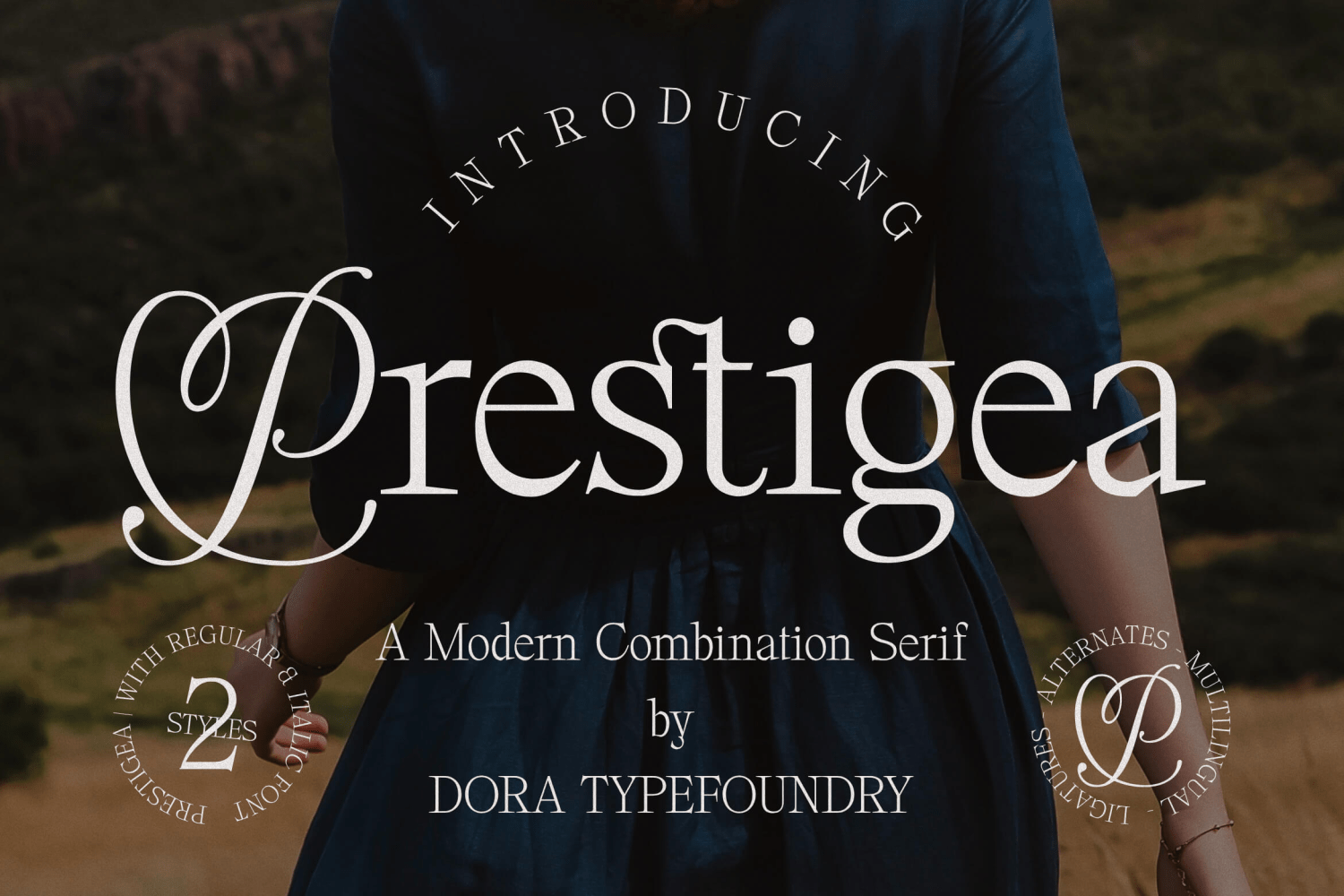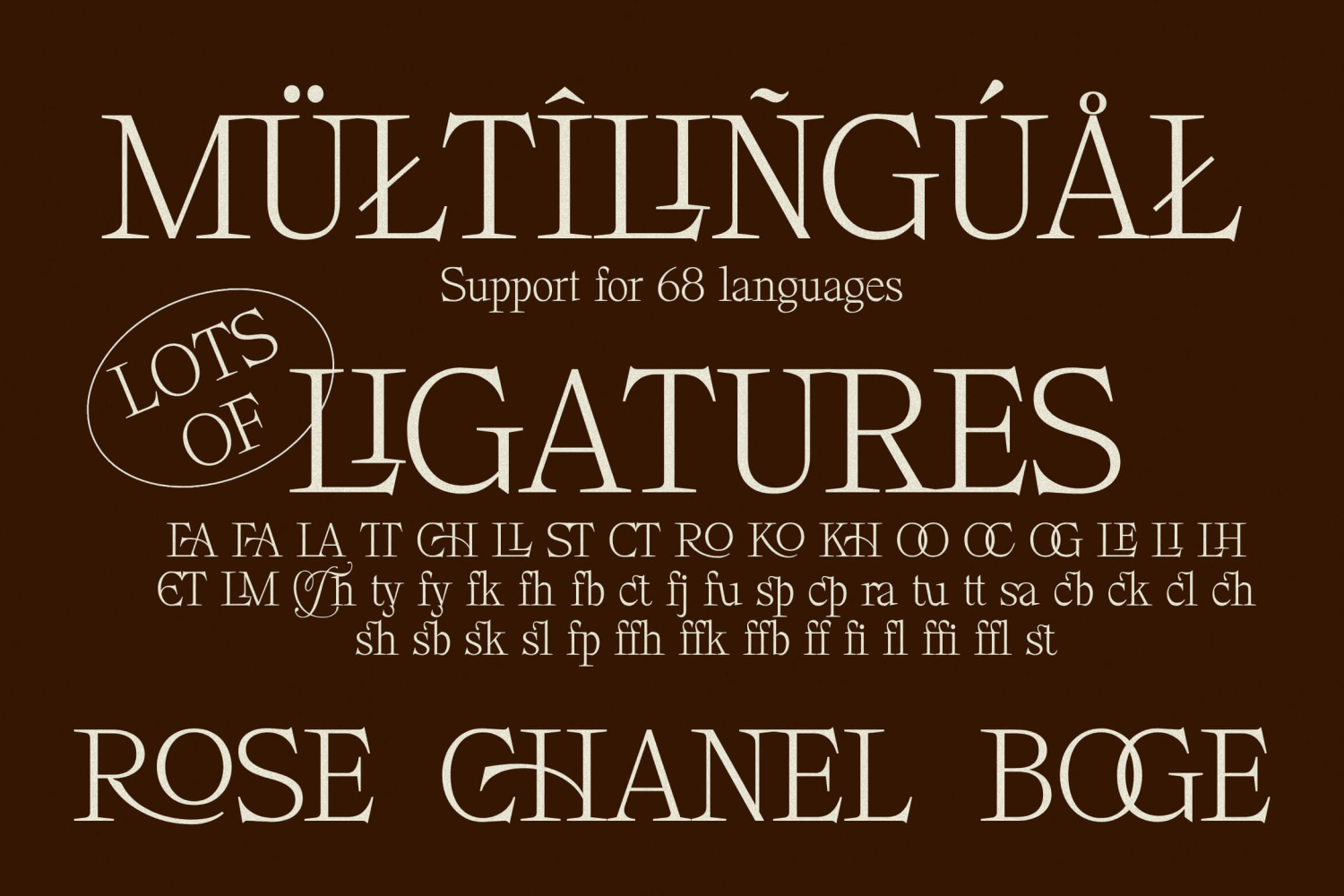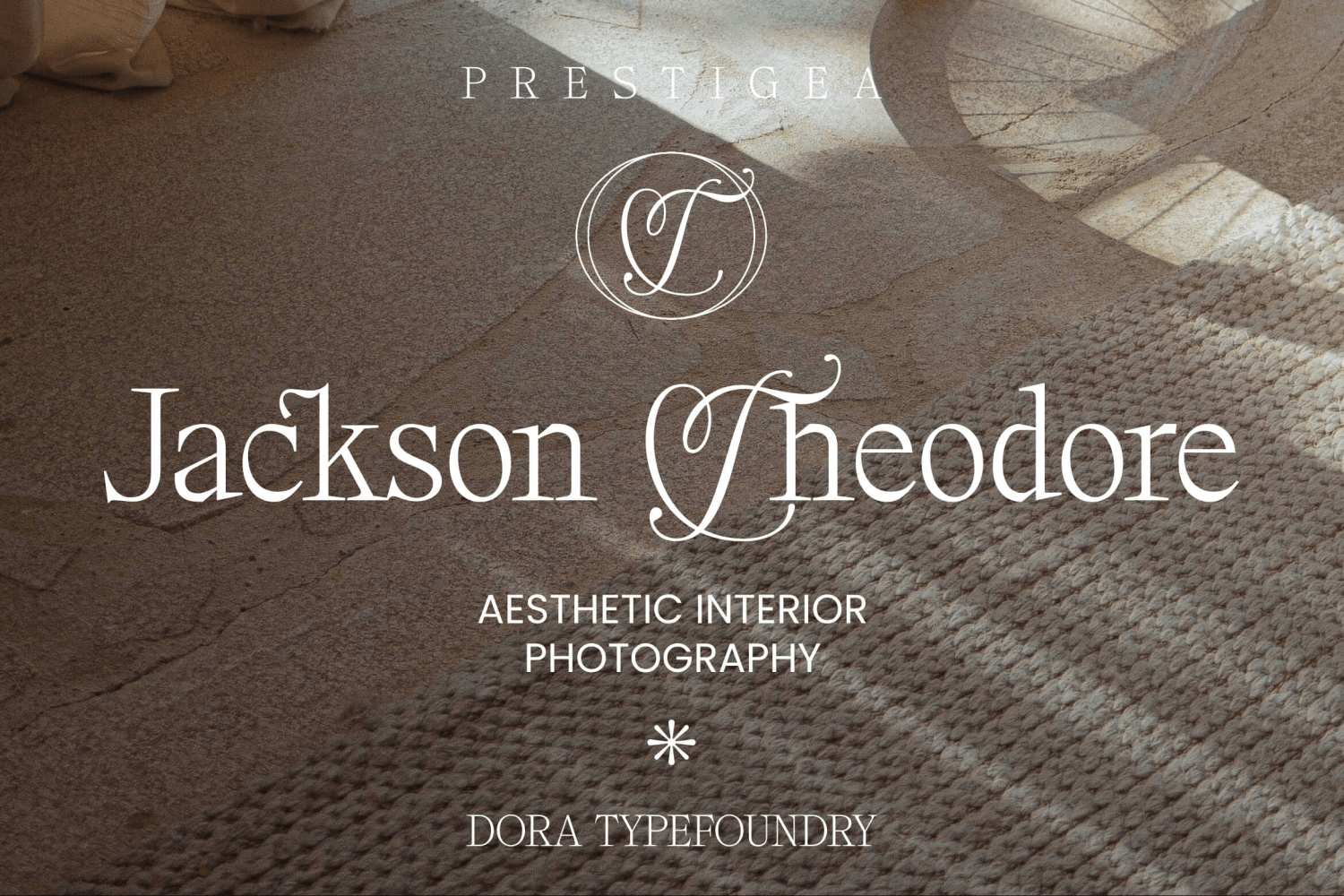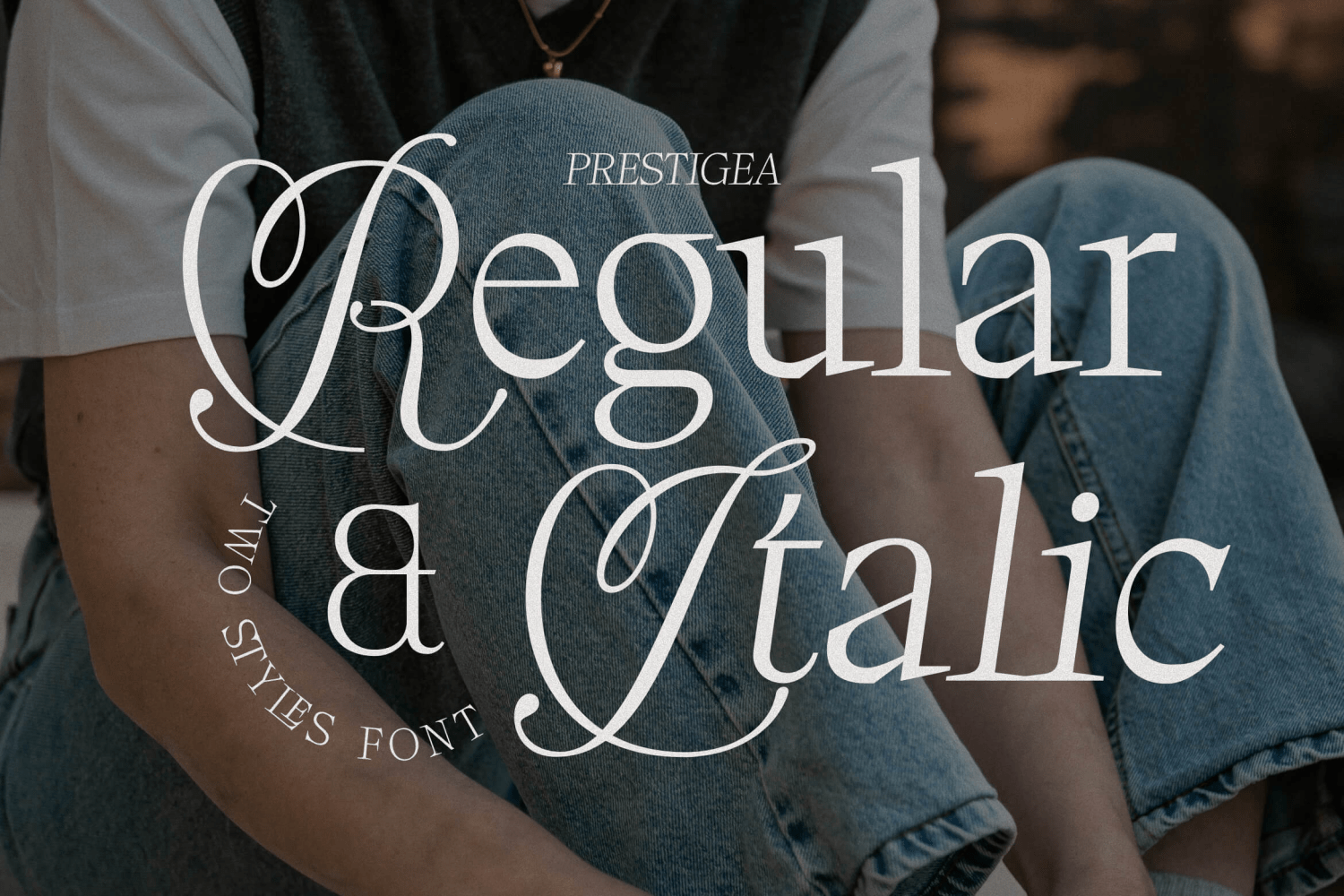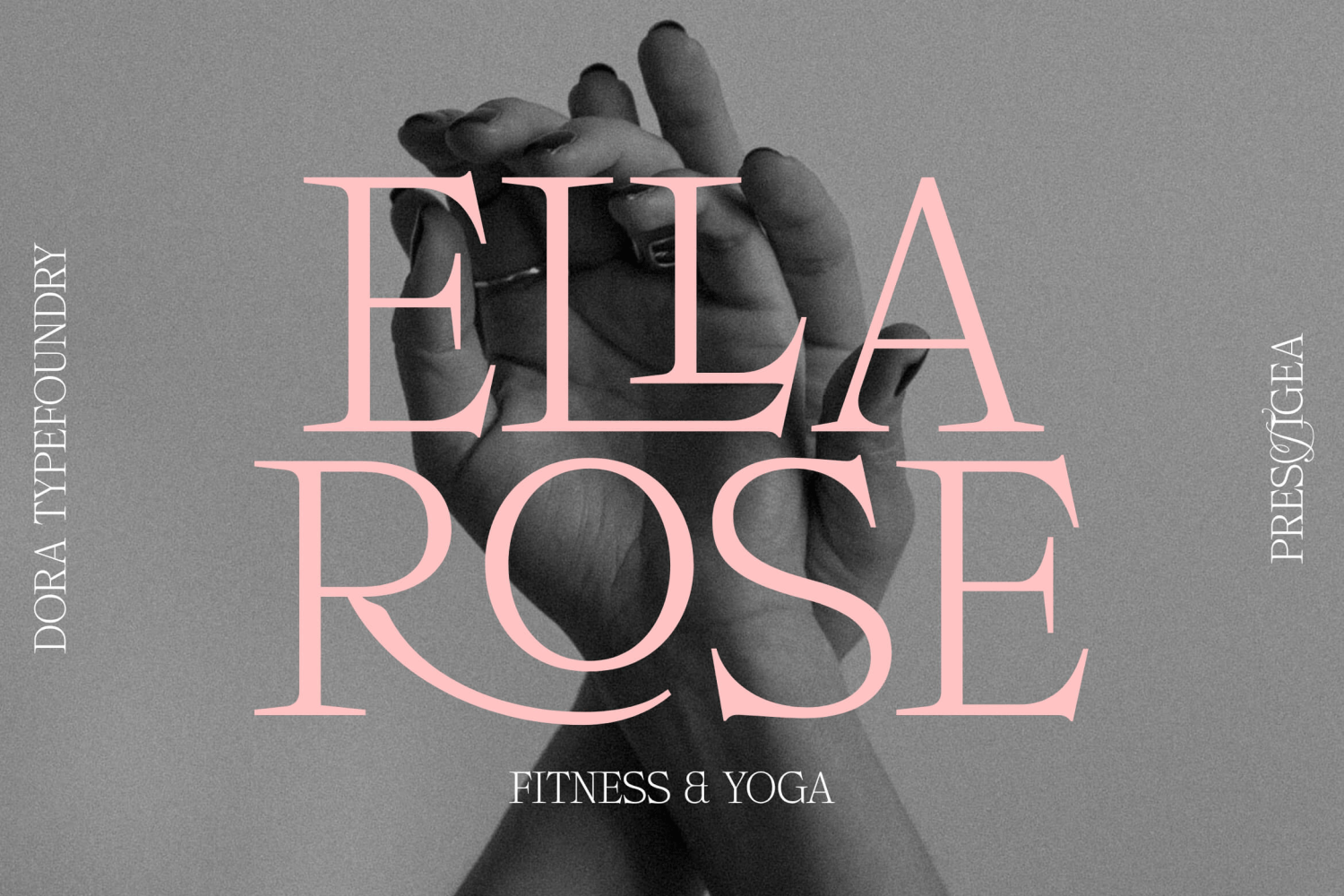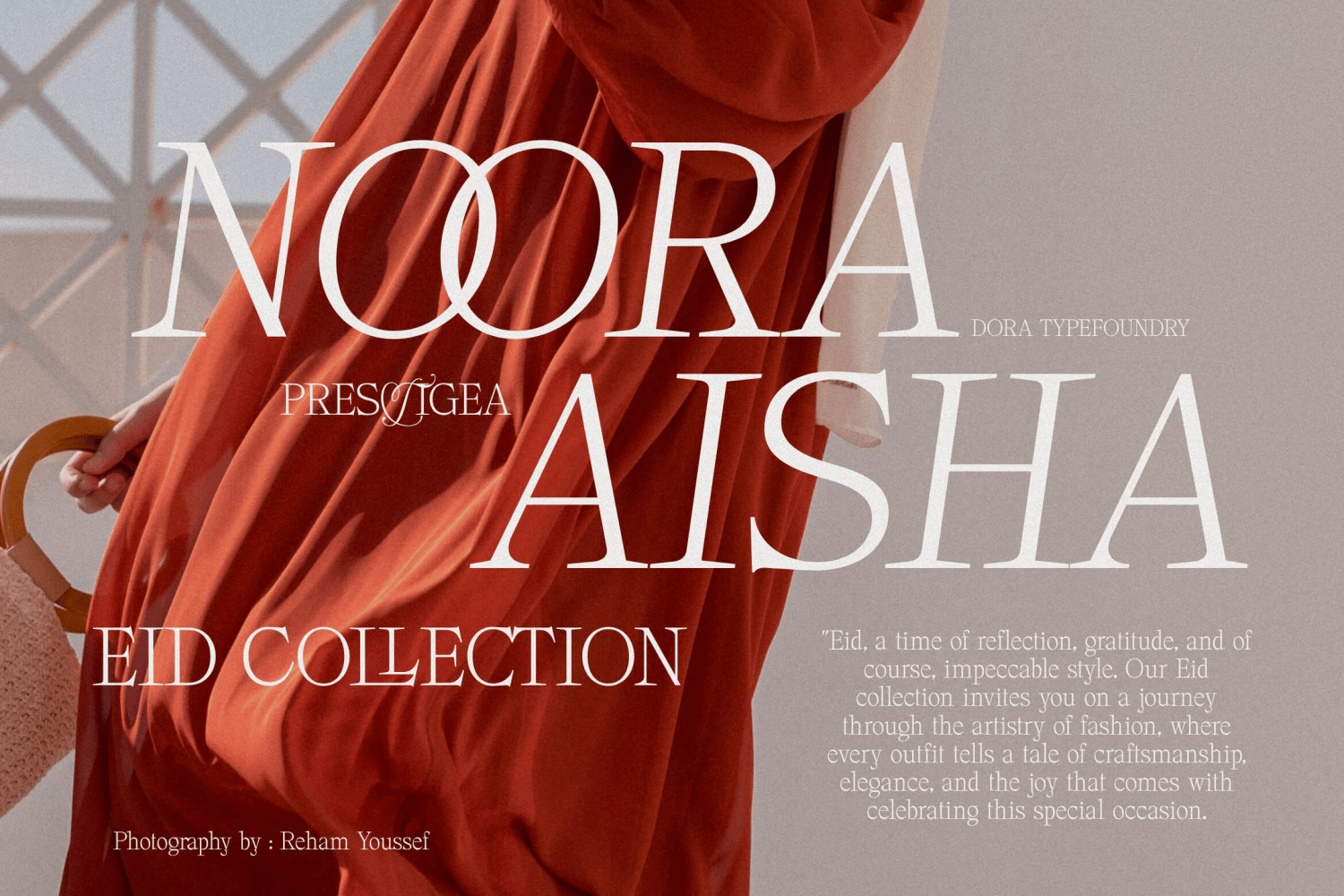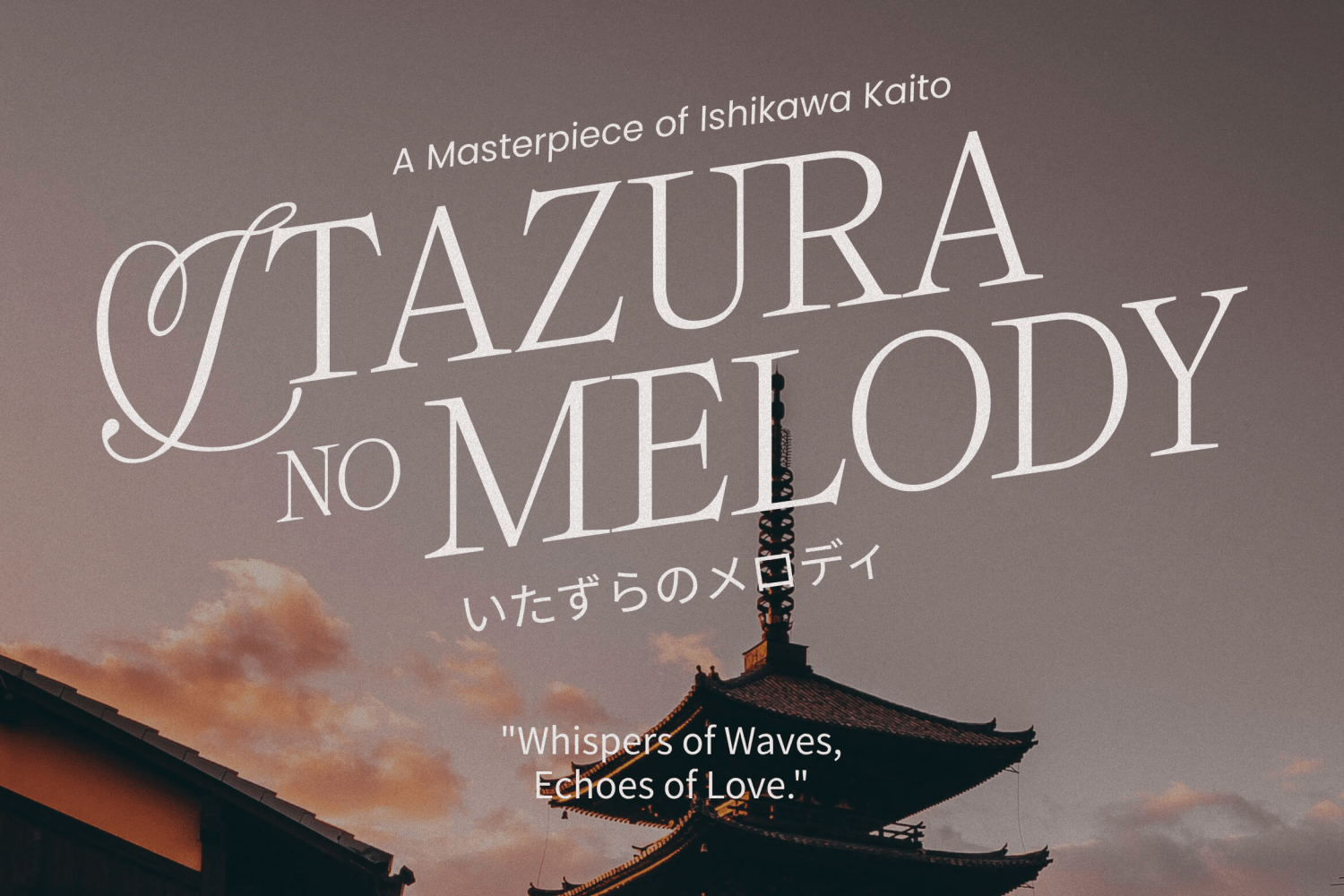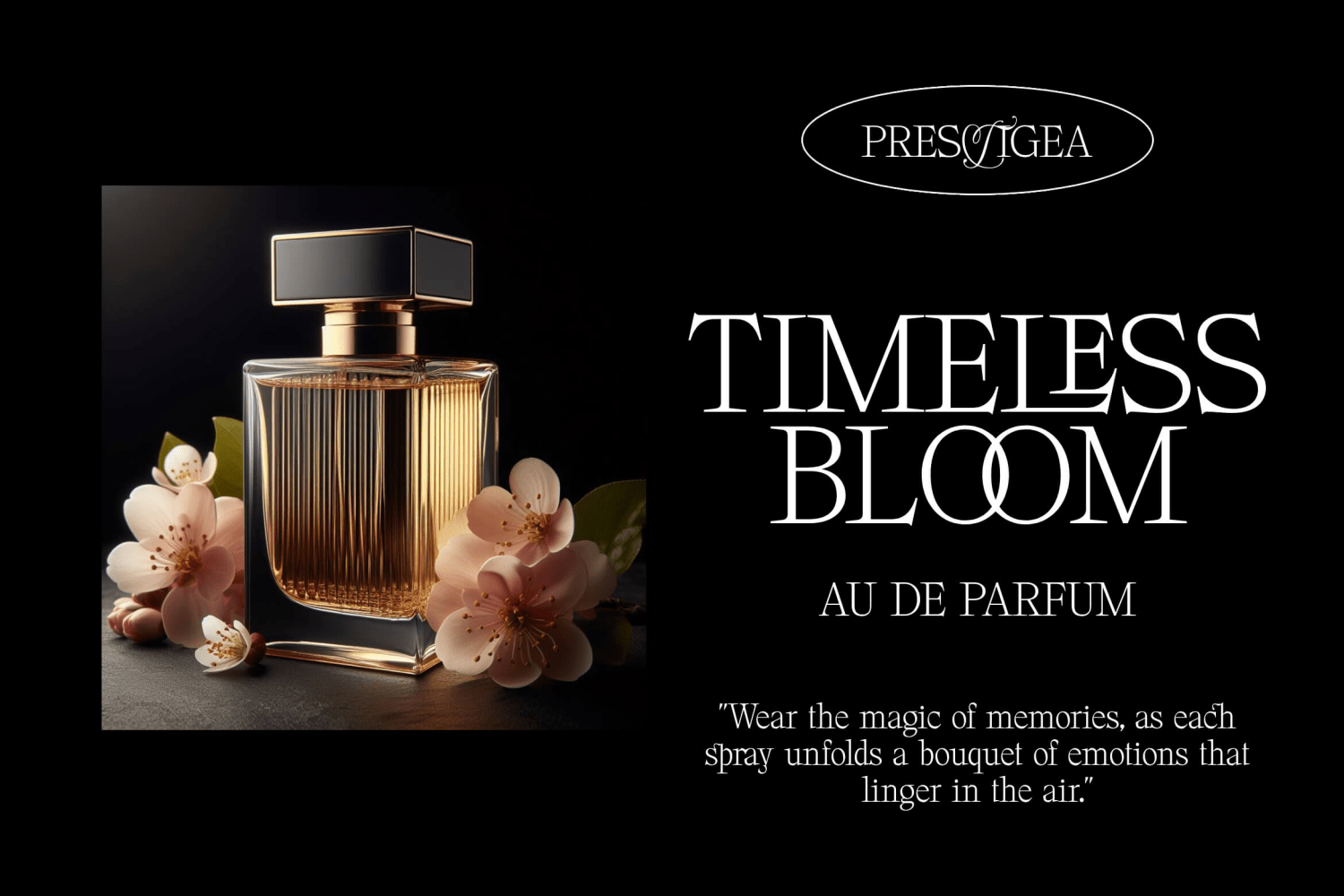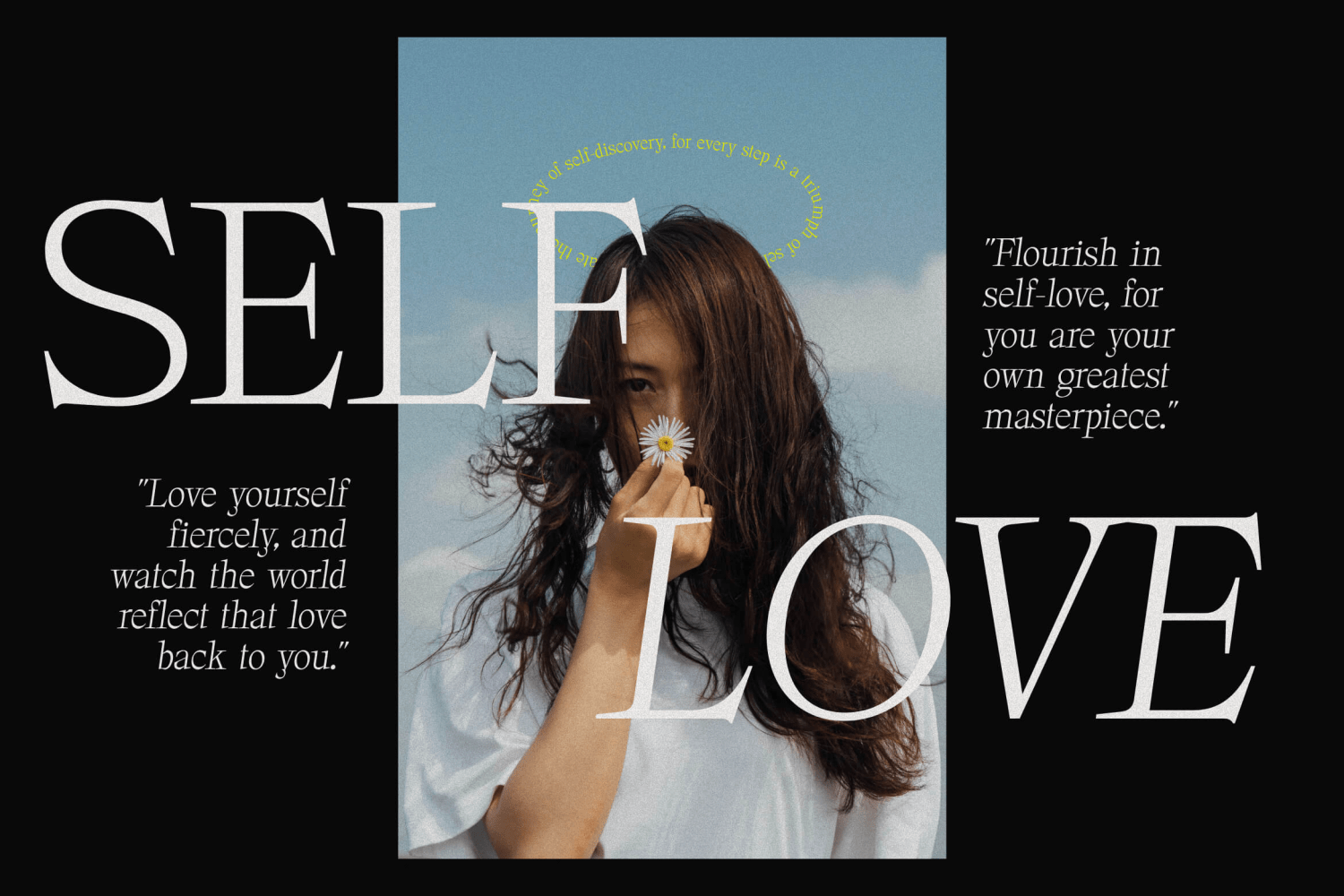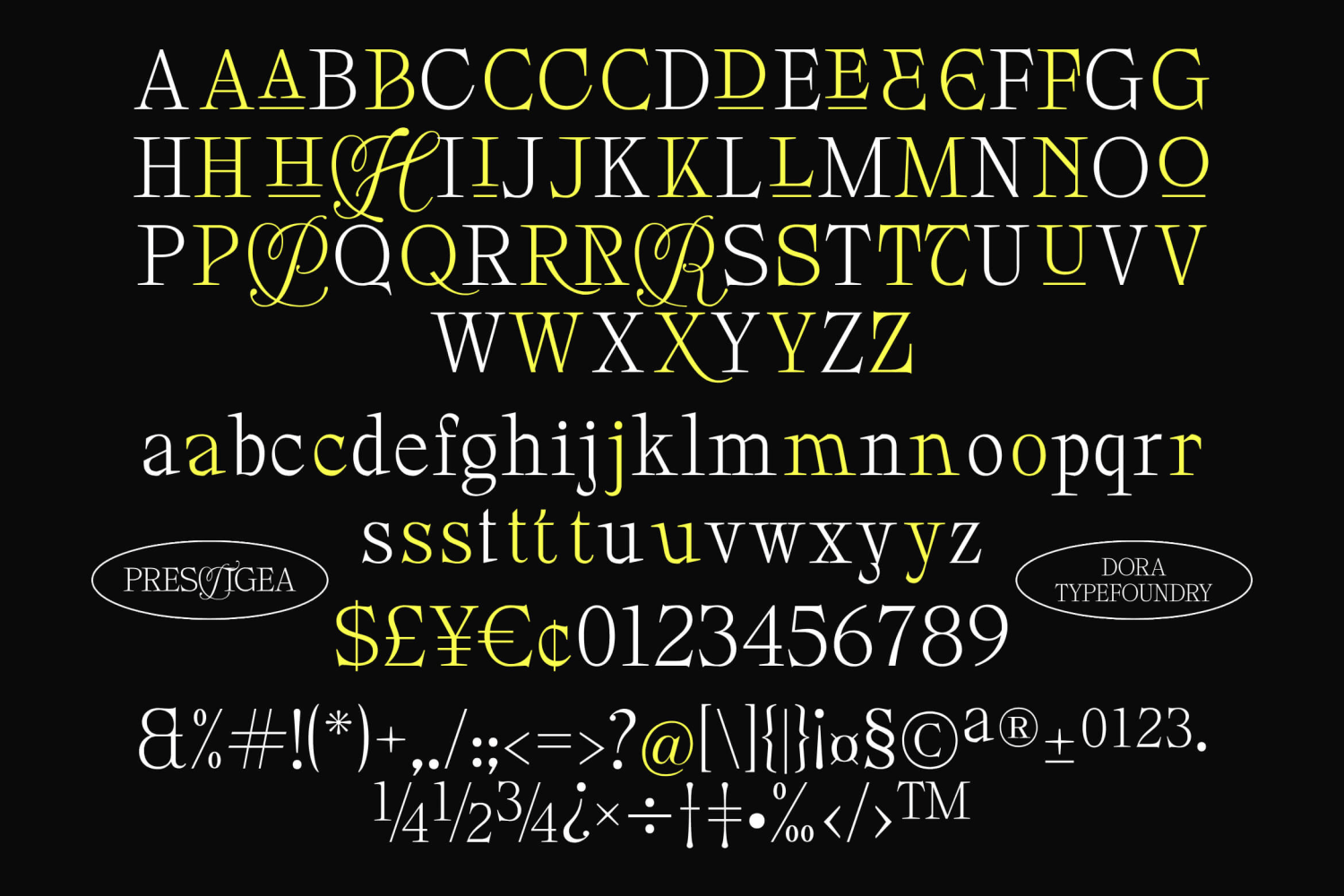
Prestigea
Font Family by Dora Typefoundry
Prestigea is a simple and clean serif display font added with some elegant & nostalgic script letters. This type of font is equipped with more than 50 ligatures and 51 alternative glyphs. It is very suitable for your various needs such as branding projects, logos, wedding designs, social media posts, advertisements, product packaging, product designs, labels, photography, watermarks, invitations, stationery , and any project.
Features:
- All Caps Font with different uppercase and lowercase
- Number & Symbol
- Supported Languages
- Alternates and Ligatures